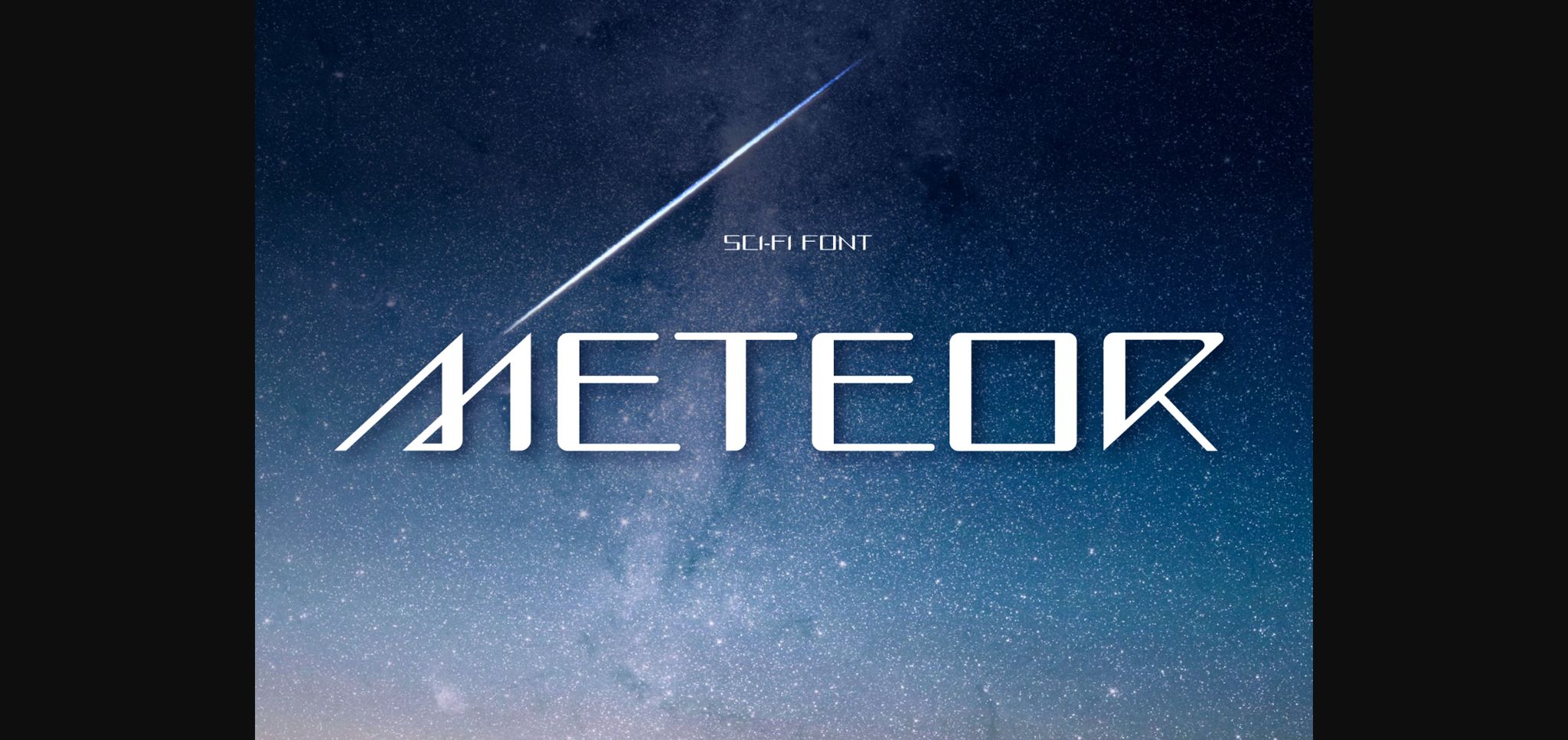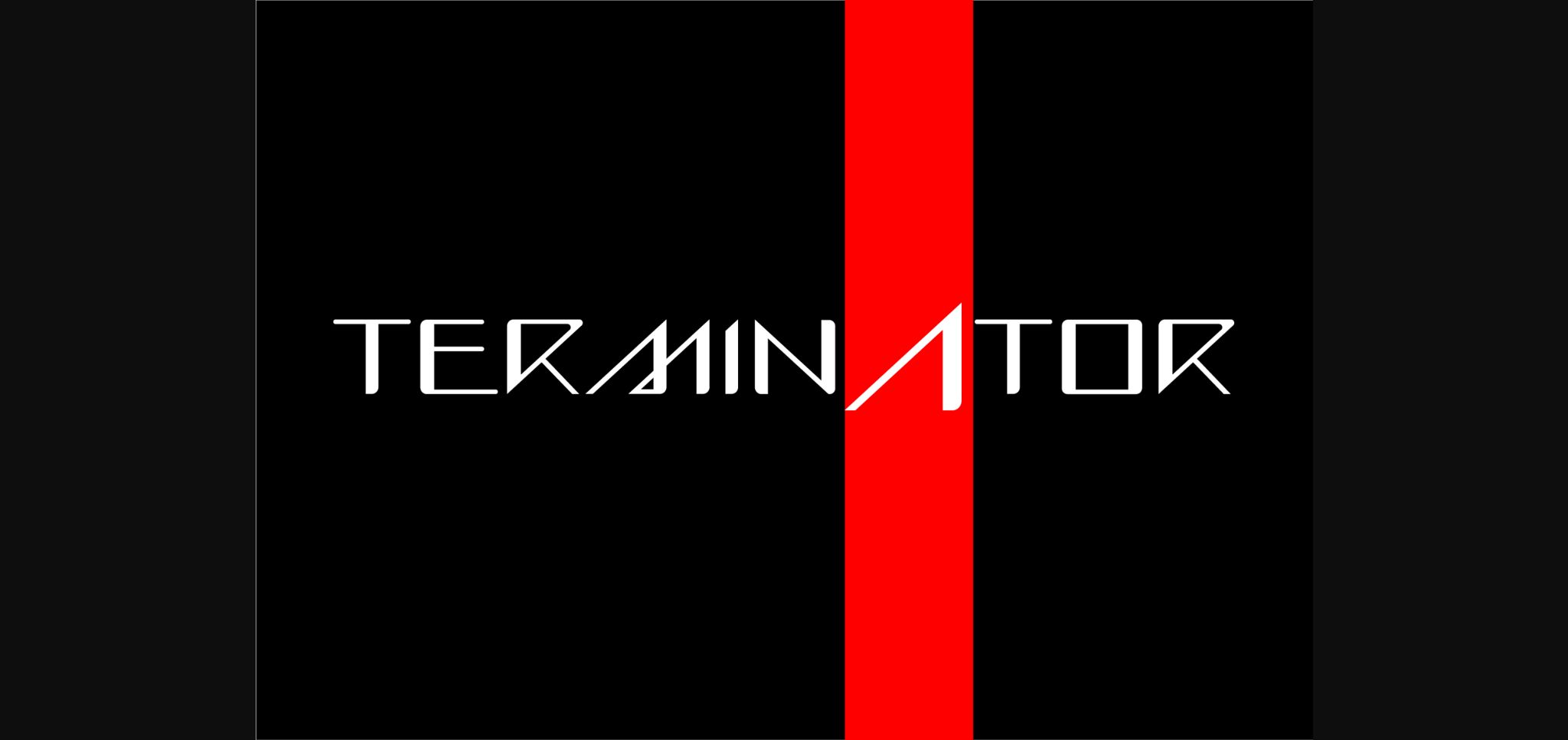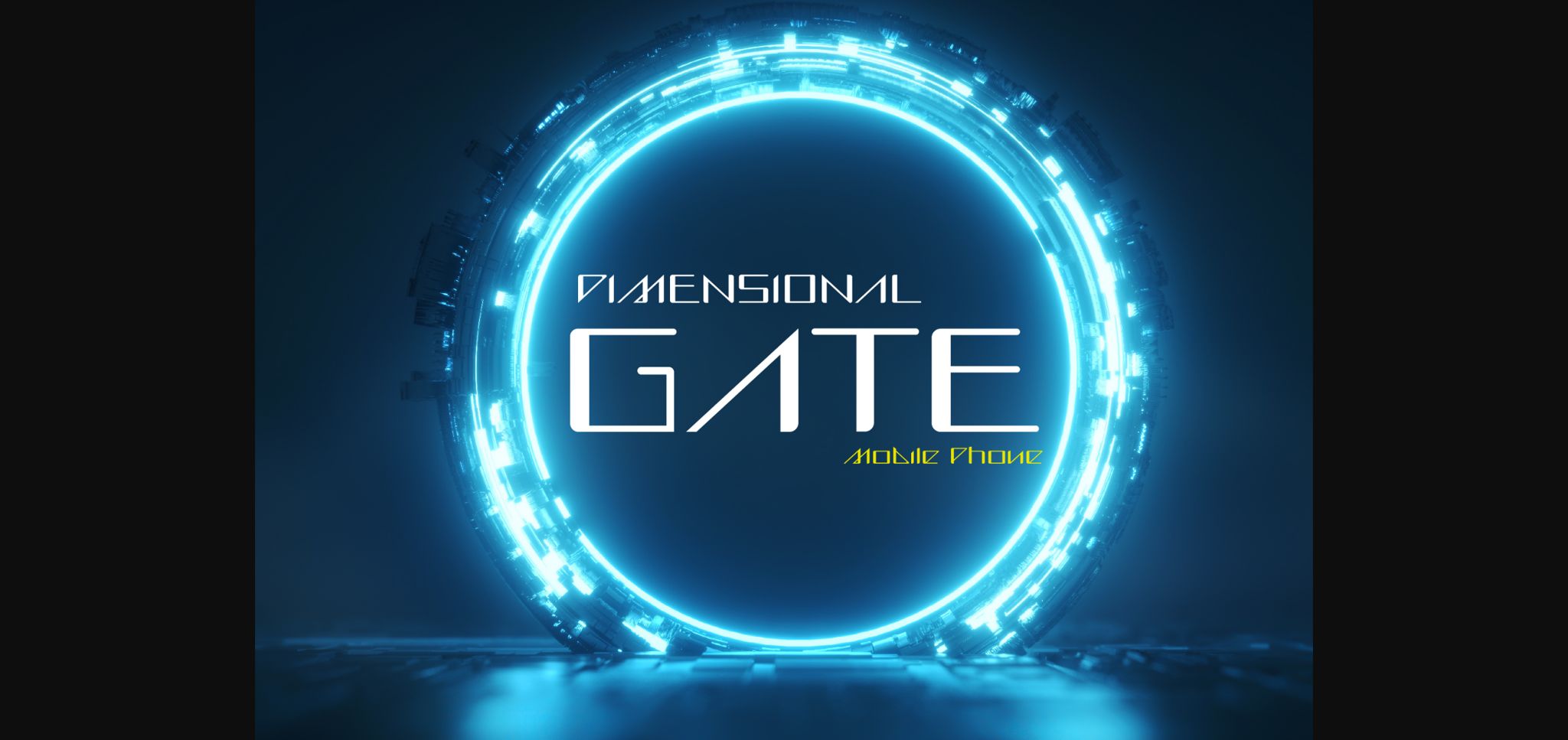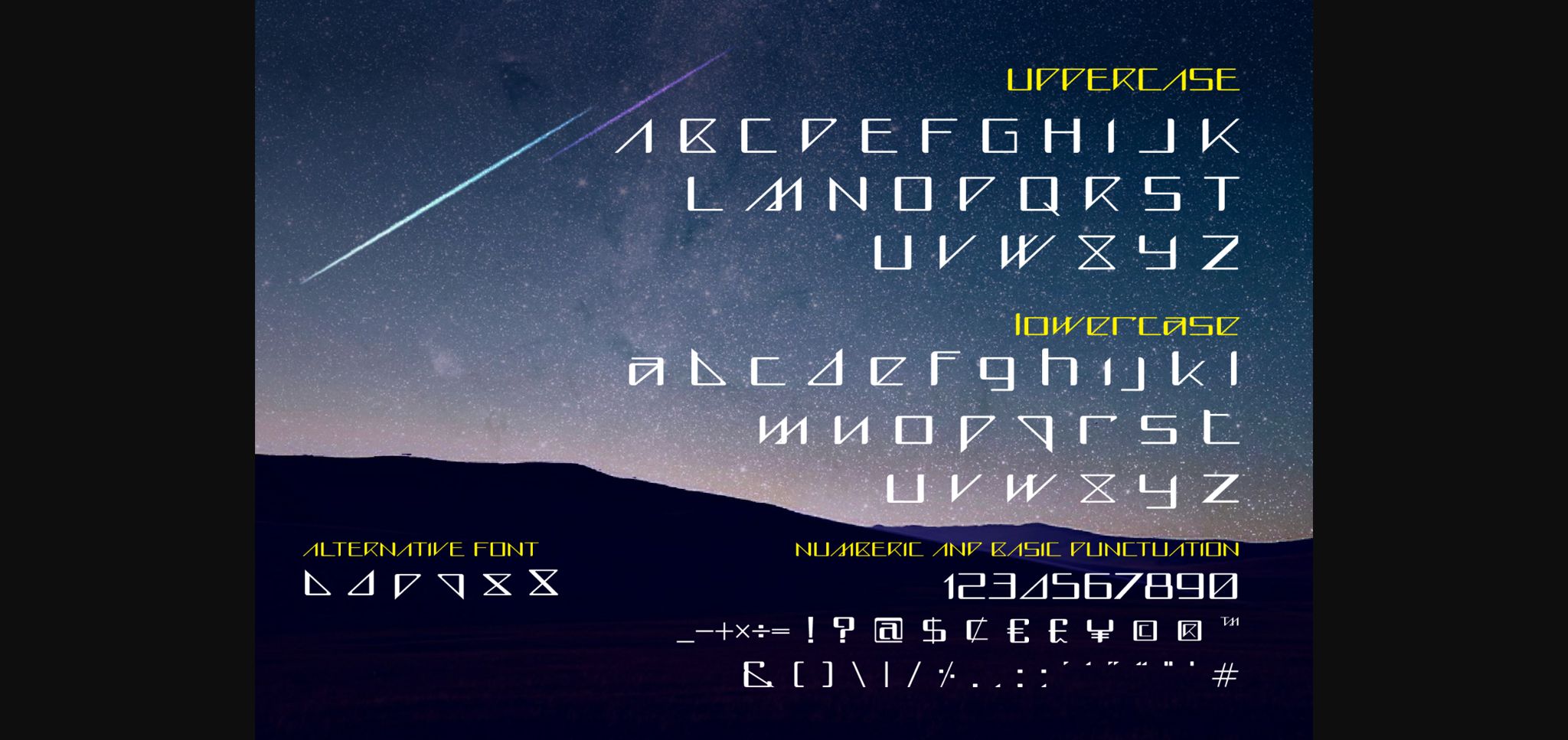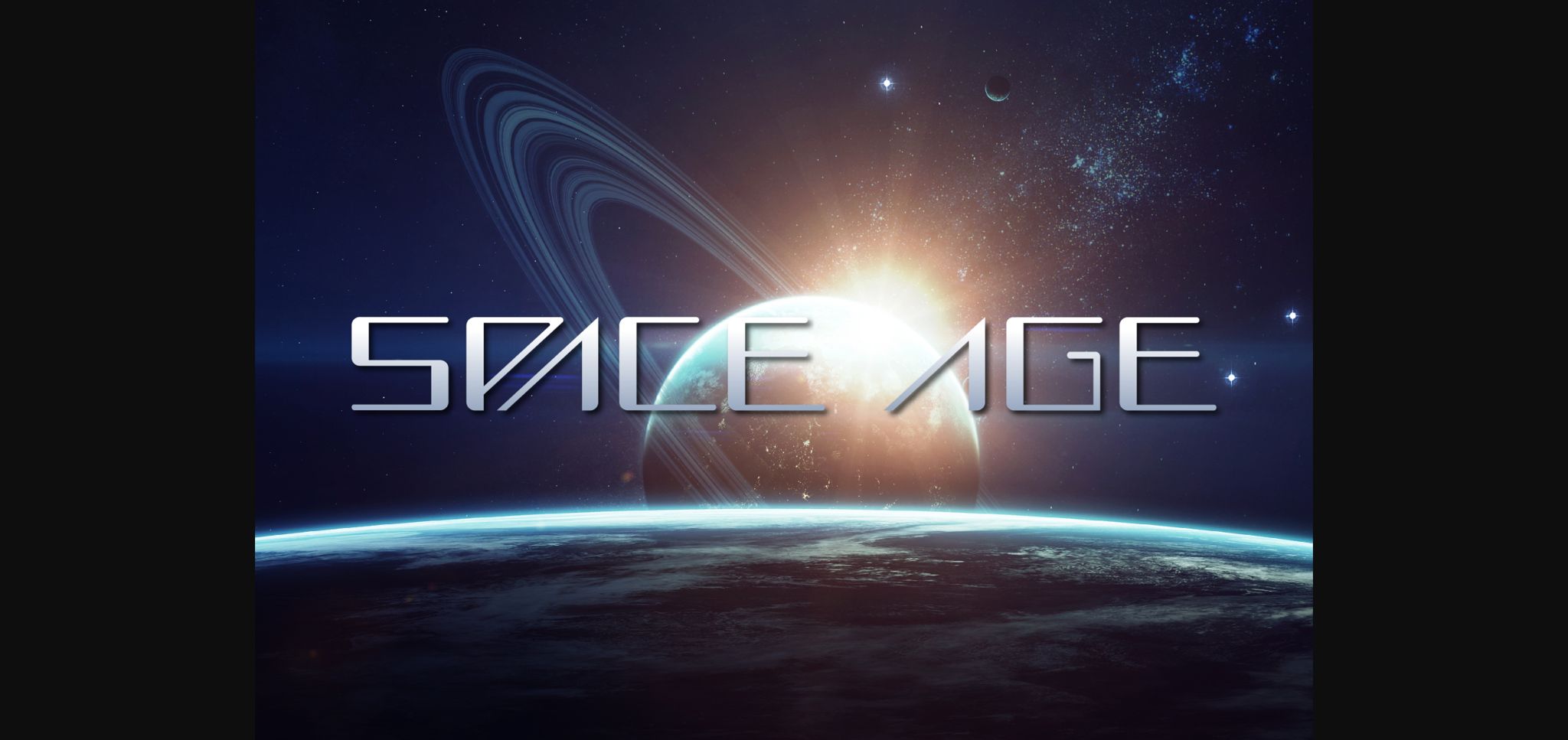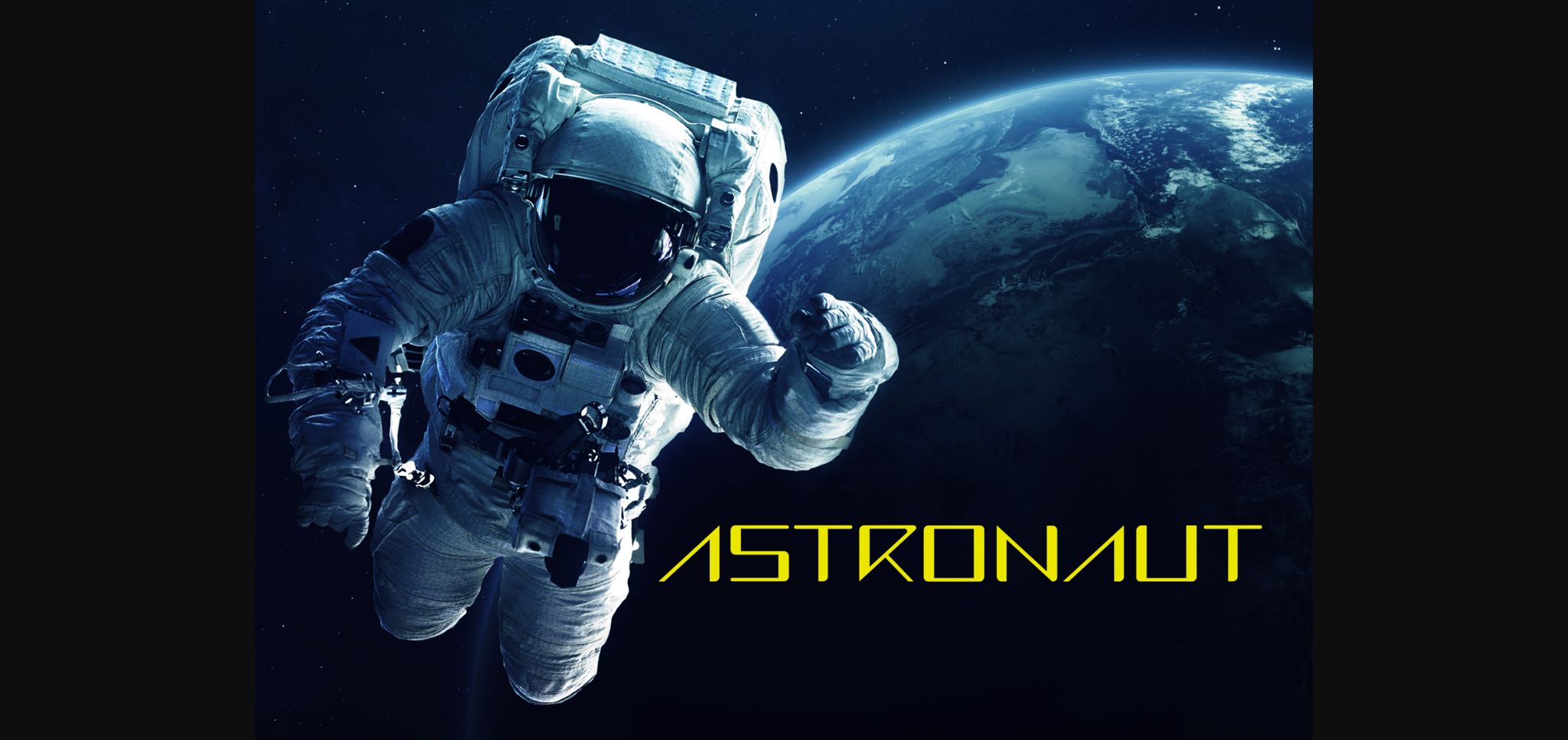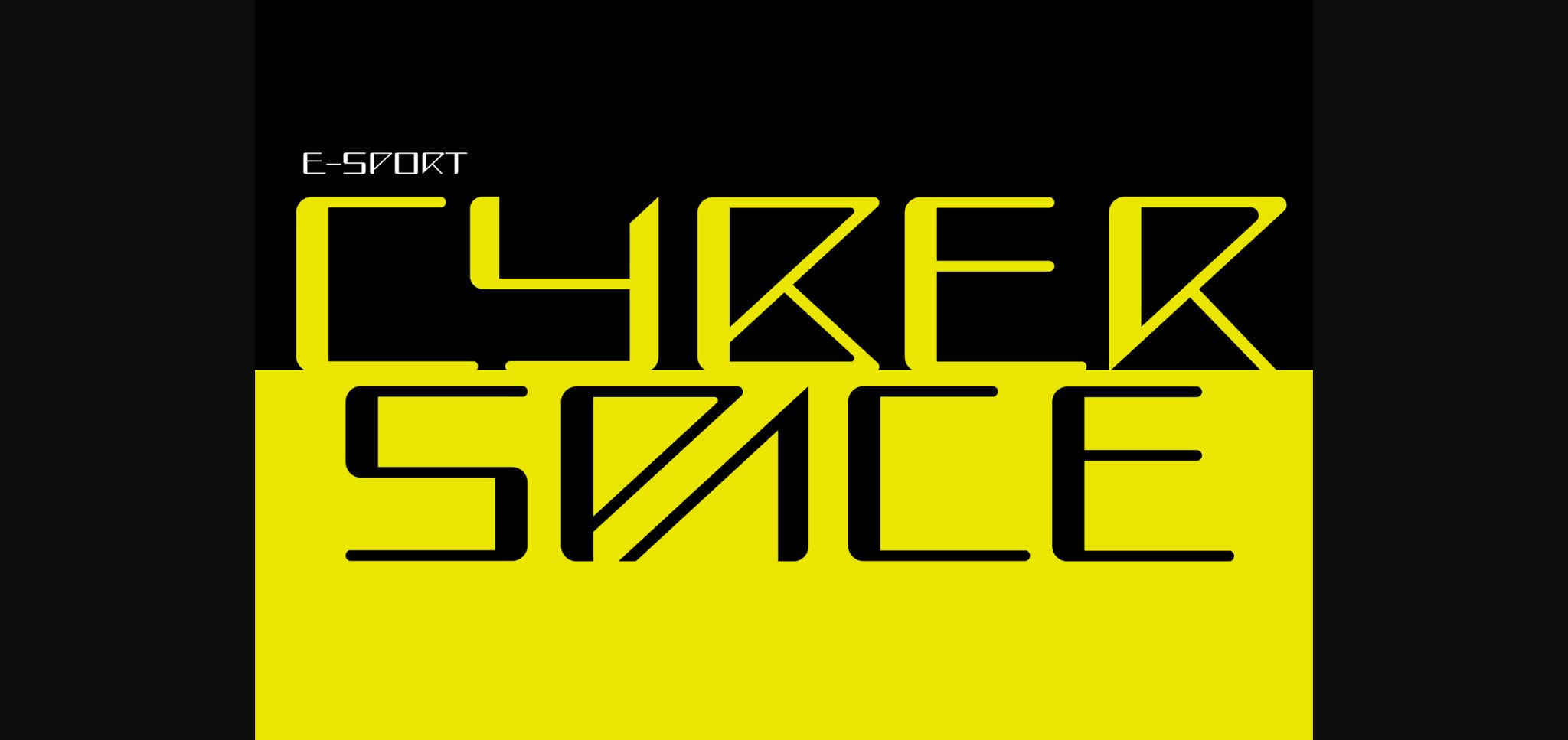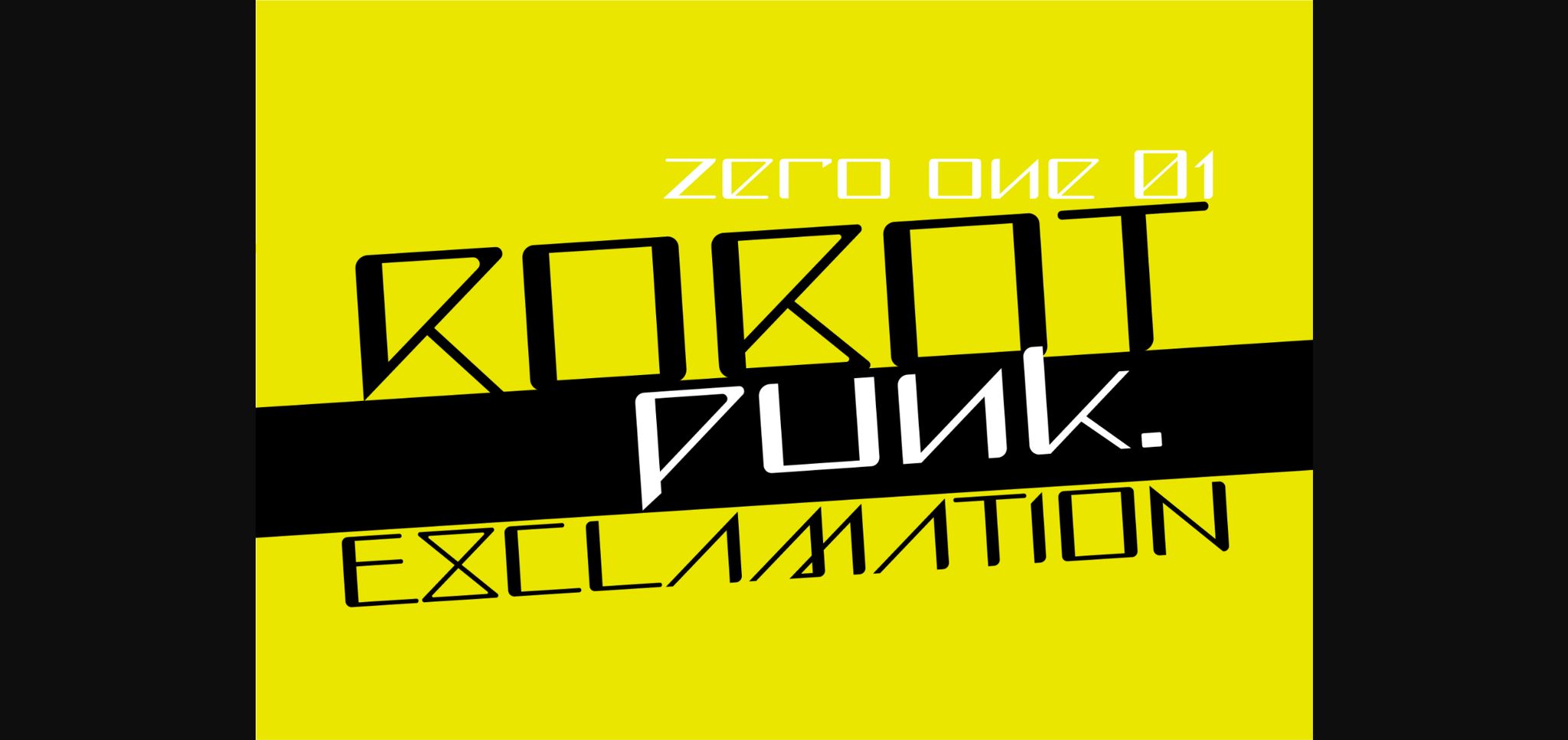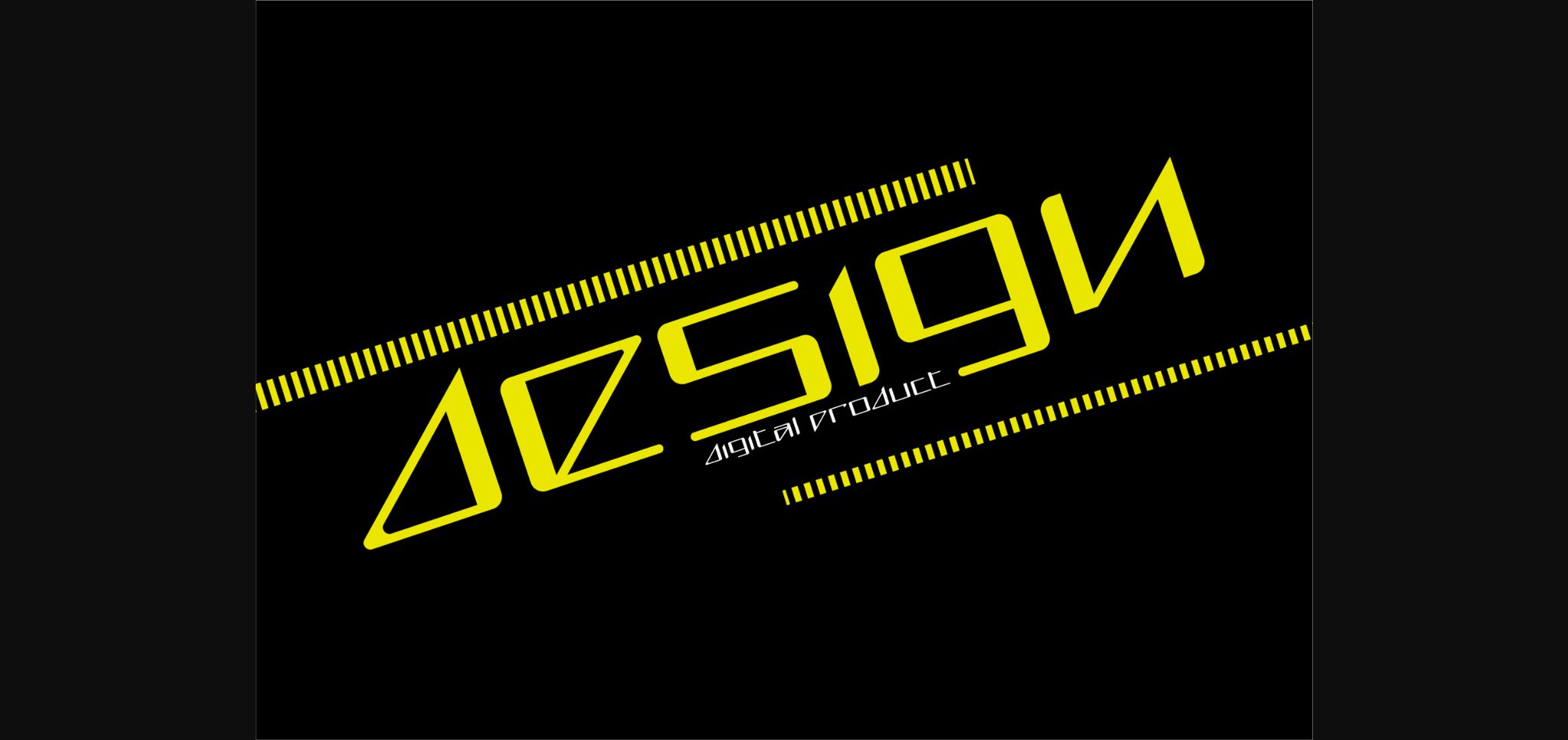
HomeSans Serif FontsMeteor Font Sans Serif Fonts Meteor Font FacebookXPinterestWhatsApp 1 of 11 ... Meteor Font Poster 2... Meteor Font Poster 3... Meteor Font Poster 4... Meteor Font Poster 5... Meteor Font Poster 6... Meteor Font Poster 7... Meteor Font Poster 8... Meteor Font Poster 9... Meteor Font Poster 10... Meteor Font Poster 11... About Meteor Font Meteor is a sci-fi font, perfect for science projects, sci-fi movies, e-sport advertising, posters and more. DOWNLOAD NOW People also explored Sunflower Farmhouse Font Sellebeew Font Hipsters Font Varita Font Slugger Font Classic Photoshop Shapes Font Martin Clarkson Font Realistic Mock-ups on Vintage Background Baby Cowboys Font 474 0 TagsMeteorMeteor Font Previous articleFoliage FontNext articleYeah, Yeah, Yeah Font LEAVE A REPLY Cancel reply Comment: Please enter your comment! Name:* Please enter your name here Email:* You have entered an incorrect email address! Please enter your email address here Website: Save my name, email, and website in this browser for the next time I comment. Personal Use Free The Lima Personal Use Free Read more about this font Williana Personal Use Free Read more about this font The Moshbusther Personal Use Free Read more about this font Callisa Script Personal Use Free Read more about this font BLOG 5 Fonts That Will Dominate Design Trends in 2026 5 Fonts for 2026 That Will Dominate Design Trends Typography plays a critical role in visual communication, and as we look ahead to 2026, it’s... Where to Buy American Fonts Online in 2024 How to Cut Any Font on Cricut: Convert a Font to SVG (Free) To increase your work productivity, choose the most readable fonts.